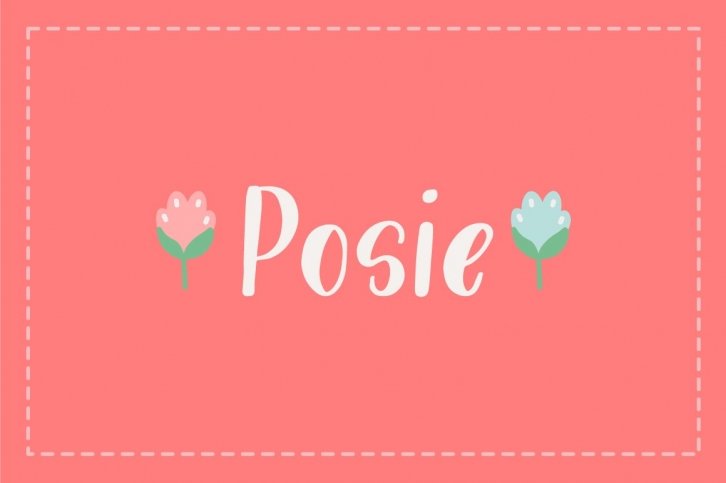
Posie is a hand made font created in Procreate by MJ herself. It's a fun and whimsical font that would be perfect for greeting cards, toys, picture books or anything that requires a naive sensibility 🌼 🌸 🌺 ðŸŒ